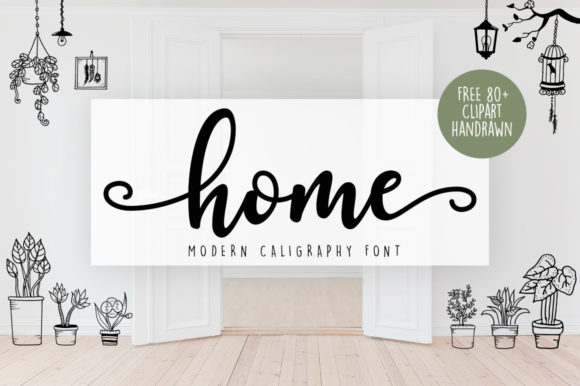
Home: A Versatile Hand-Lettered Script Font for Creative Projects
Home is a soft, hand-lettered script font that brings an authentic and charming feel to any design project. Its gentle curves and organic flow make it ideal for a variety of creative applications, from wedding invitations to social media graphics. As a designer or content creator, having access to fonts that evoke emotion and personality is essential, and Home delivers just that with its elegant yet approachable style.
Understanding the Design and Purpose of Home
At first glance, Home appears to be a simple script font, but its character lies in the subtleties of its design. The font mimics the natural flow of handwriting, which gives it a personal and heartfelt quality. This makes it particularly well-suited for projects that aim to convey warmth, love, and individuality.
What sets Home apart from other script fonts is its PUA (Private Use Area) encoding. This feature allows users to easily access a range of special glyphs, swashes, and alternate characters without the need for complex workarounds. Whether you're designing a custom greeting card or crafting a unique logo, these additional elements provide greater flexibility and customization options.
Key Features That Make Home Stand Out
Home comes with several features that enhance its usability and appeal:
- Alternate Glyphs: These allow for stylistic variations that can be used to add visual interest and uniqueness to your text.
- Ligatures: These are special combinations of characters that create a more fluid and natural appearance when used in certain words or phrases.
- Swashes: These decorative flourishes can be used to accentuate specific letters, making your text stand out in a visually appealing way.
- Consistency and Readability: Despite its script style, Home maintains a level of legibility that ensures your message remains clear and easy to read.
The combination of these features makes Home a versatile tool that can be adapted to various design needs while maintaining a consistent aesthetic.
Real-World Applications and Performance
In practice, Home has proven to be a reliable choice for a wide range of design tasks. Its soft and flowing style works particularly well for invitations, where the goal is to create a sense of occasion and personal connection. Wedding invitations, for example, benefit greatly from the romantic and heartfelt tone that Home conveys.
For those working on social media posts, Home adds a touch of elegance and personality that can help brand content stand out in a crowded digital space. The font's ability to be customized with alternate glyphs and swashes means that each post can feel unique and tailored to the message being conveyed.
Designers who create stationary art or greeting cards will also find Home to be an excellent choice. Its hand-lettered appearance gives these items a personal and artisanal feel that can't be replicated by standard sans-serif or serif fonts.
Who Would Benefit Most from Using Home?
Home is particularly suited for professionals and creatives who value both aesthetics and functionality in their work. Event planners, graphic designers, and wedding coordinators will appreciate the font's ability to convey warmth and emotion in invitations and event materials.
Content creators and social media managers can use Home to add a distinctive visual element to their posts, helping to build a stronger brand identity. Bloggers and publishers may also find it useful for headings, titles, or callout sections that require a more personal touch.
Freelancers and small business owners looking to create marketing materials, such as flyers or brochures, will benefit from Home's versatility and ease of use. Its PUA encoding ensures that even those with limited typography experience can access and utilize the font's advanced features without difficulty.
Evaluating Quality, Usability, and Long-Term Value
When assessing the quality of a font, it's important to consider not only its visual appeal but also its technical performance. Home excels in this regard, offering a clean and professional design that doesn't compromise on readability. Its consistent stroke weight and balanced proportions ensure that it looks good across different sizes and mediums.
From a usability standpoint, the PUA encoding is a major advantage. It simplifies the process of accessing special characters, which can be a time-consuming task with other fonts. This makes Home accessible to a wider range of users, including those who may not be familiar with advanced typography tools.
In terms of long-term value, Home is a font that can be used across multiple projects and over time. Its adaptability and aesthetic appeal make it a worthwhile investment for anyone involved in design or content creation.
Considerations and Possible Limitations
While Home offers many benefits, it's important to consider its limitations before deciding whether it's the right font for your project. Like all script fonts, it may not be the best choice for body text in long-form documents, where readability is paramount. In such cases, a more structured and legible font would be more appropriate.
Overall, Home is a valuable addition to any designer's toolkit. Its soft, hand-lettered style, combined with its advanced typographic features, makes it a versatile and effective font for a wide range of applications. Whether you're creating wedding invitations, social media content, or custom greeting cards, Home offers a unique and authentic aesthetic that can elevate your designs.